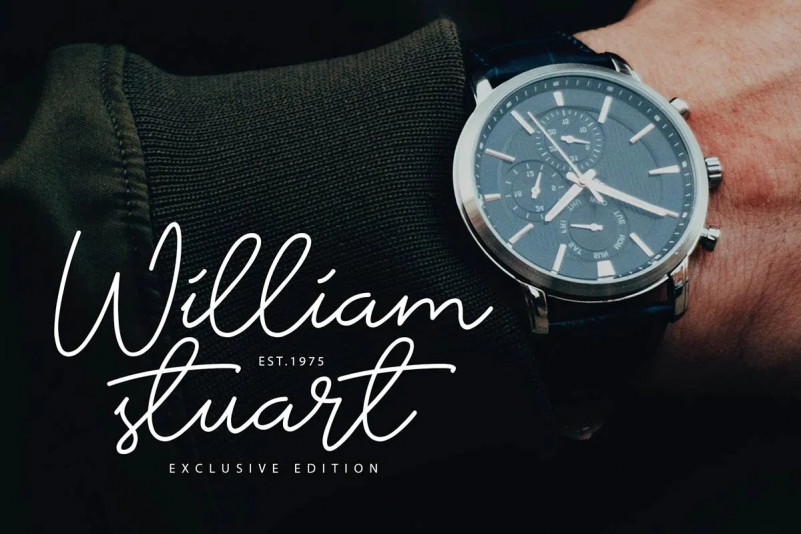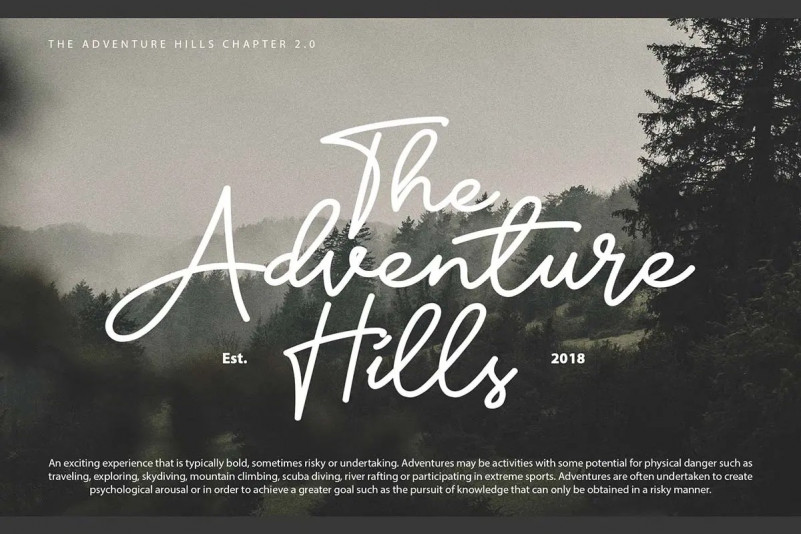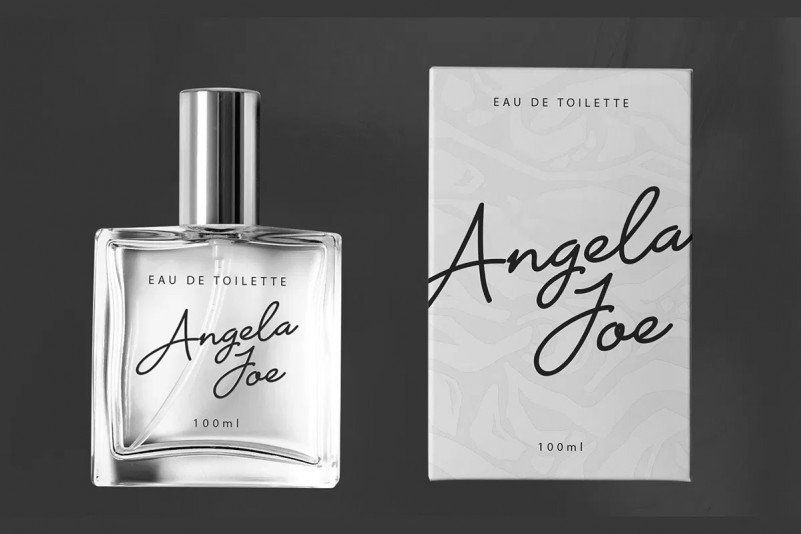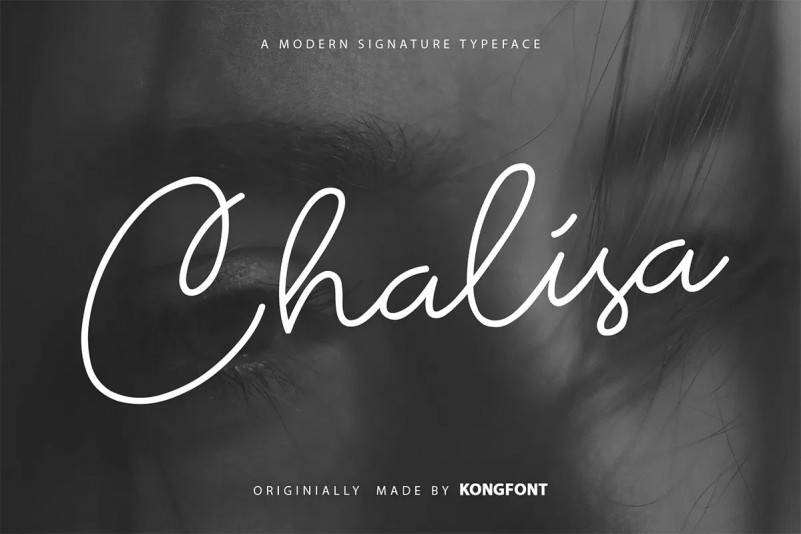
Chalisa Handwritten Font
This is a modern monoline script typeface, featuring well balanced characters. It can be used for various purposes such as logos, wedding invitations, headings, t-shirts, letterhead, signage, labels, news, posters, badges and so much more.